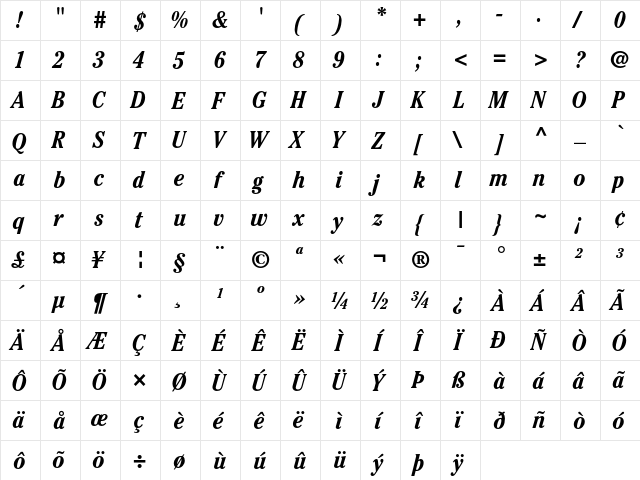
ITC Cheltenham Bold Condensed Italic Font Preview
Design Context for ITC Cheltenham Typeface
ITC Cheltenham takes a measured approach to typography — its balanced proportions and neutral character make it a reliable workhorse for both digital and print work. The slanted form adds forward momentum and visual energy. Its bold stroke weight gives it real presence on the page. The condensed width makes it efficient for tight spaces without sacrificing legibility.
Pro Tip: Try ITC Cheltenham for annotation and caption copy alongside an upright companion — the contrast in angle creates a dynamic but ordered typographic system.